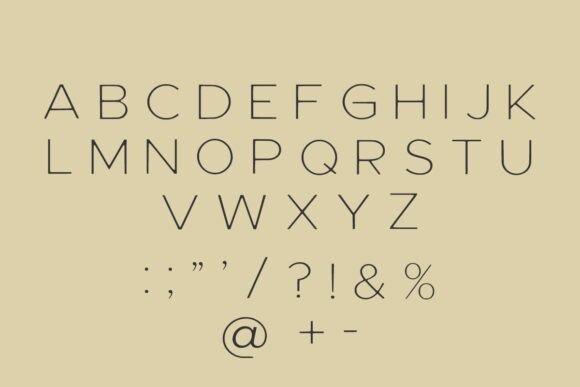
Minimalist Sans Font
Minimalist Sans is a thin, simple elegant display font. Its informal style and casual vibe will make this font a go-to choice for each of your creations that require a relaxed touch.